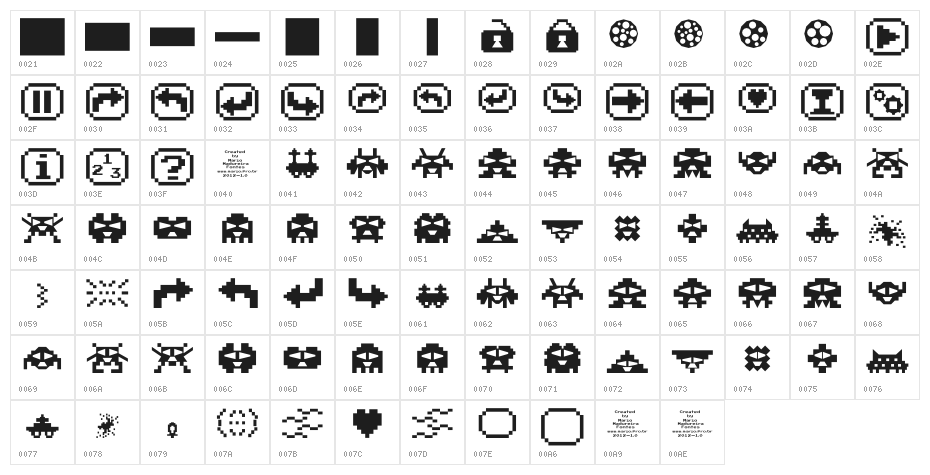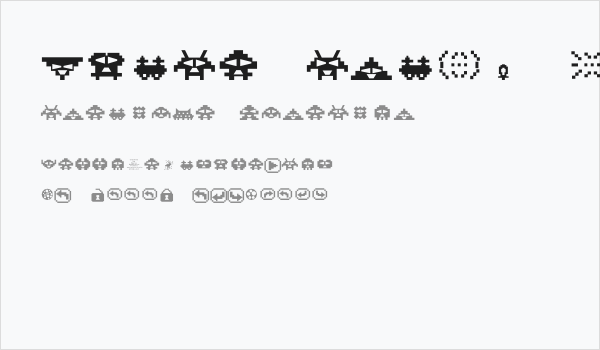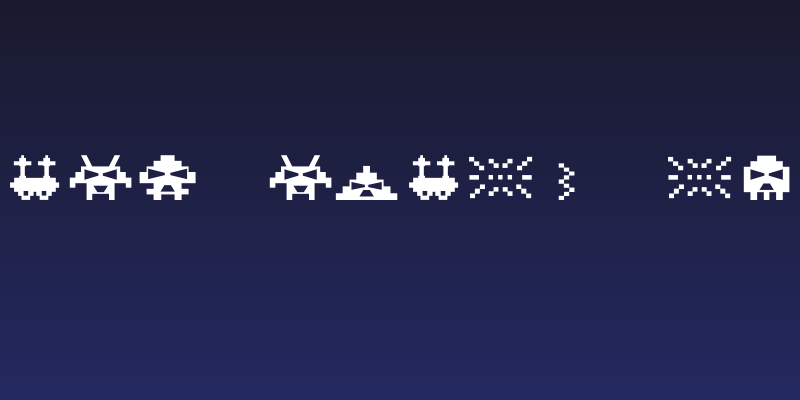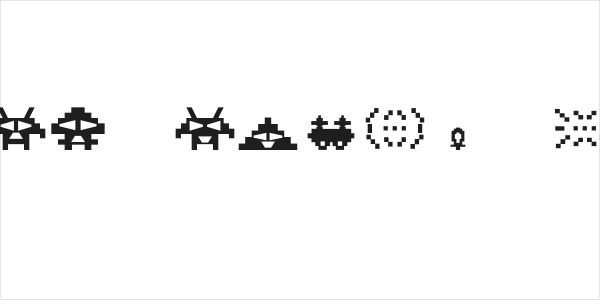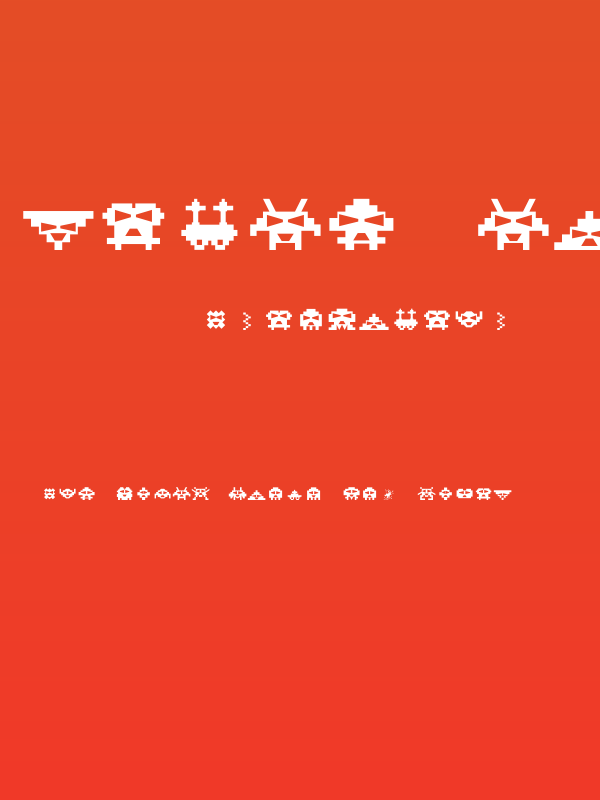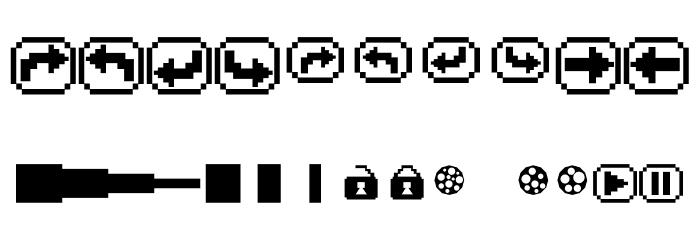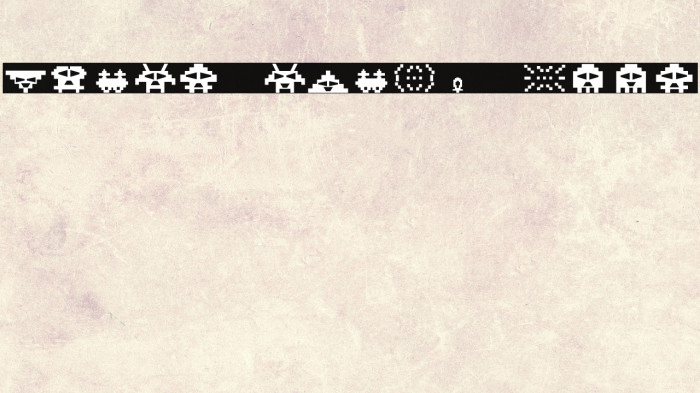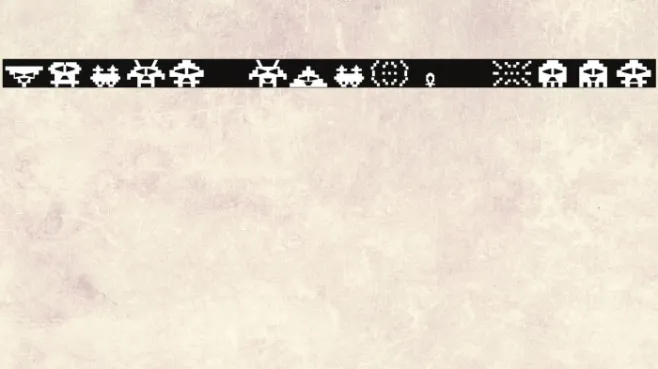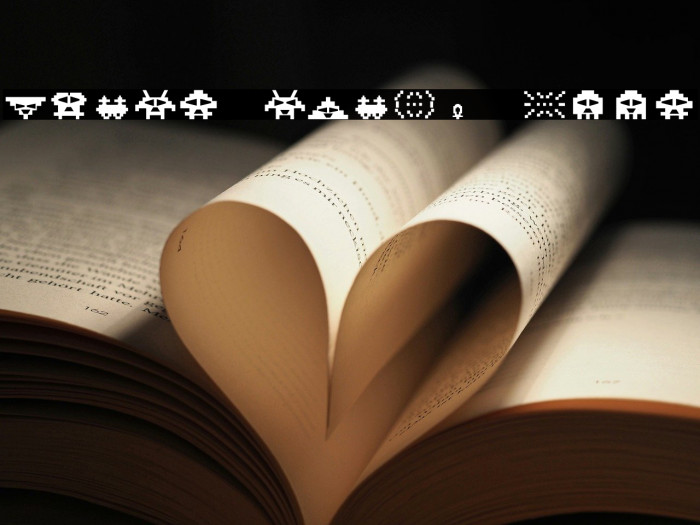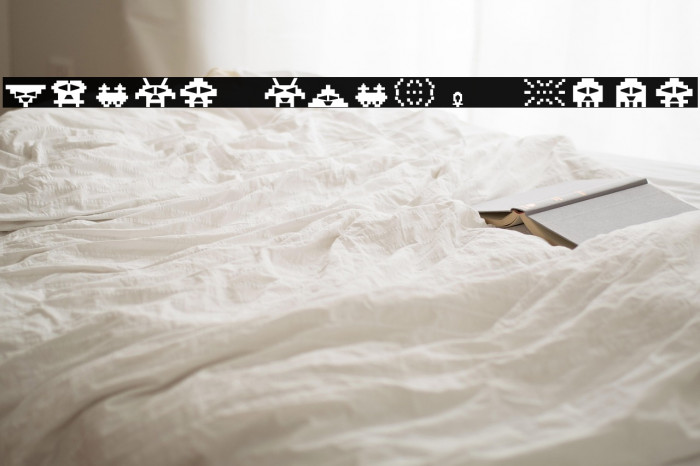
Space Crazy Zone Font
Space Crazy Zone Description
This font is a highly decorative and playful design inspired by classic arcade games and pixel art. Each character is crafted to resemble iconic space-themed elements, such as spaceships and aliens, giving it a nostalgic and retro feel. The pixelated style is consistent throughout, with each glyph maintaining a uniform blocky appearance. This design choice enhances the vintage gaming aesthetic, making it ideal for projects that aim to evoke a sense of fun and nostalgia. The characters are bold and distinct, ensuring readability while maintaining their unique style. The font's quirky and thematic nature makes it stand out, perfect for creative and themed projects.
| Use Case | Logos, Posters, Themed Events |
| Proposed Projects | Ideal for video game design, retro-themed posters, and playful branding projects. |